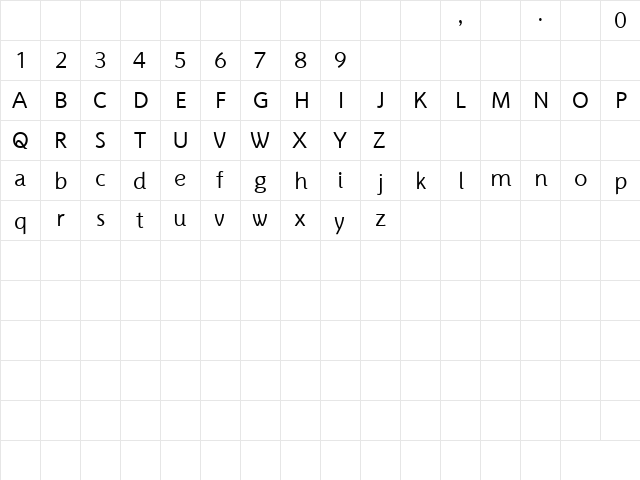
Pragnea Demo Regular
| Foundry | Tian Hazz |
| Designer | Tian Hazz |
Design Context for Pragnea Demo Typeface
Pragnea Demo is a composed and adaptable typeface that performs quietly and consistently across a wide range of design contexts.